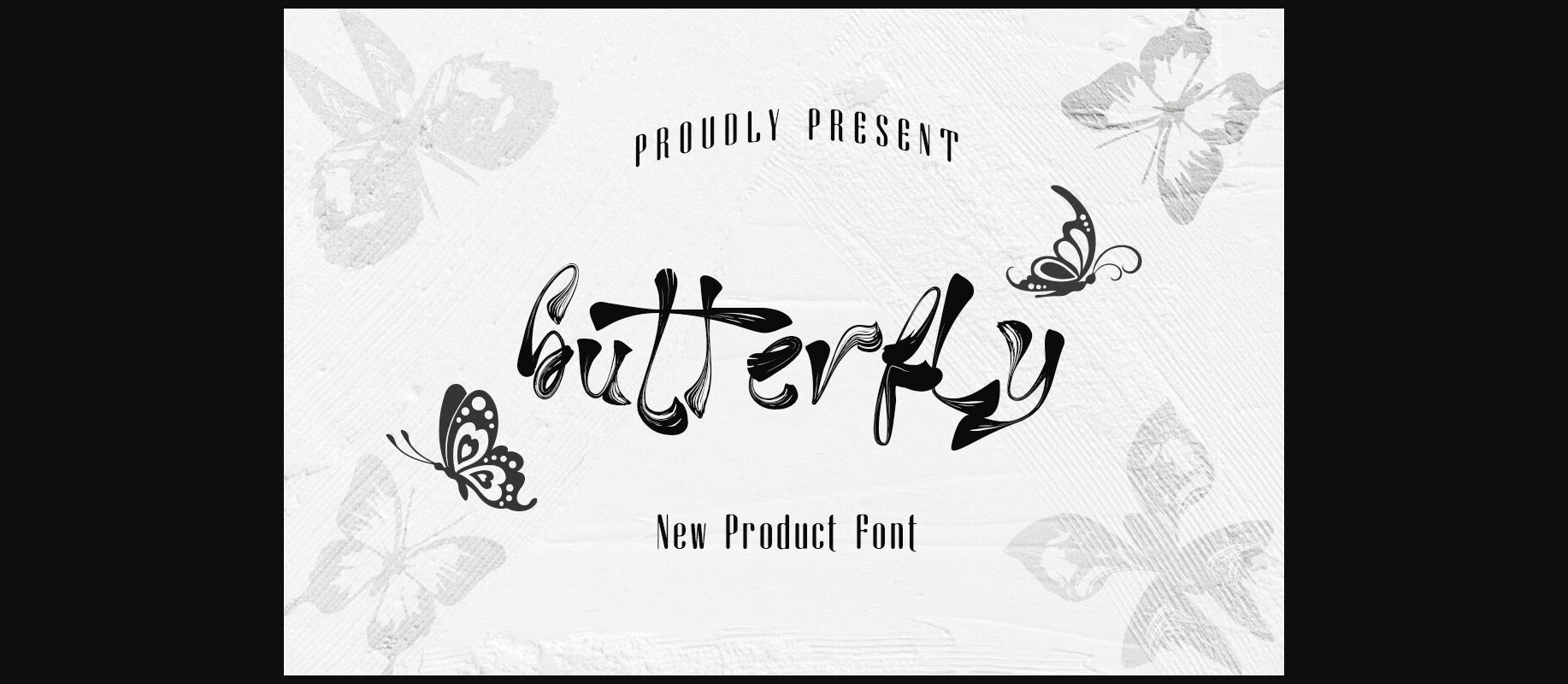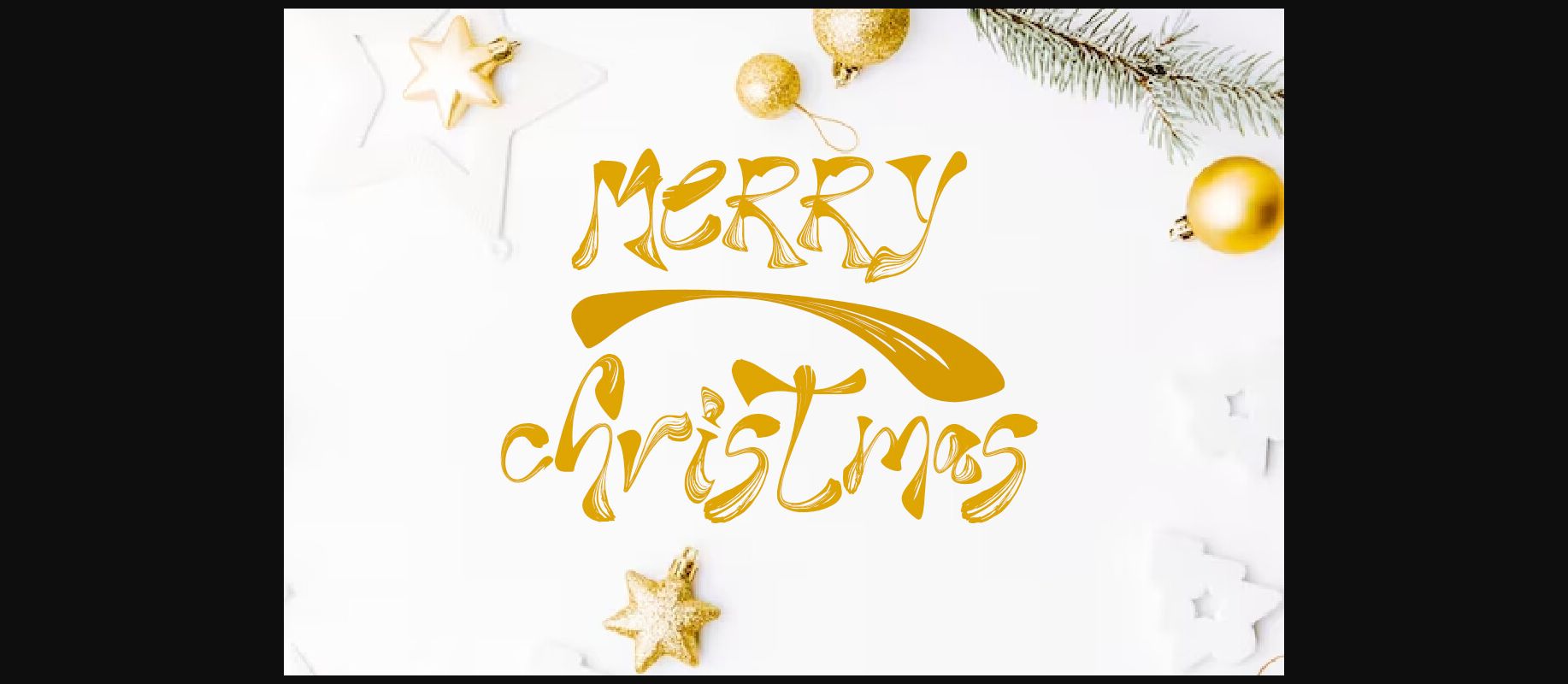
Butterfly is a new light and timeless handwritten font created in variations with a free decorative butterfly. It is the best choice for creating attractive logos, branding and designs. This font is suitable for designs like banners, photography like t-shirts, magazines, logos, advertisements, clothing and much more.. This font is PUA coded which means you can access all the glyphs and swashes easily!